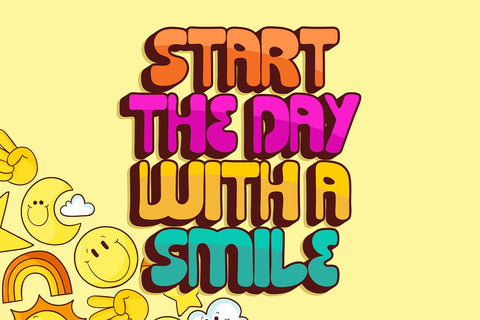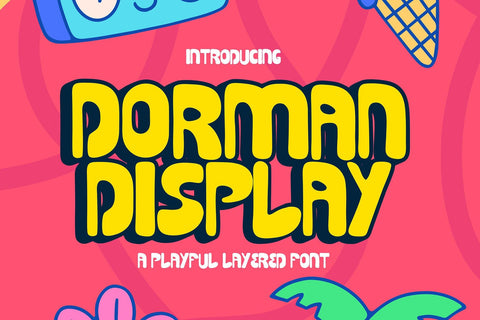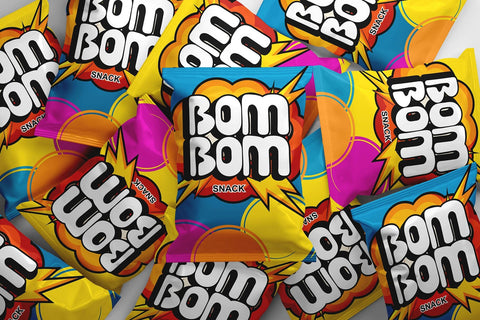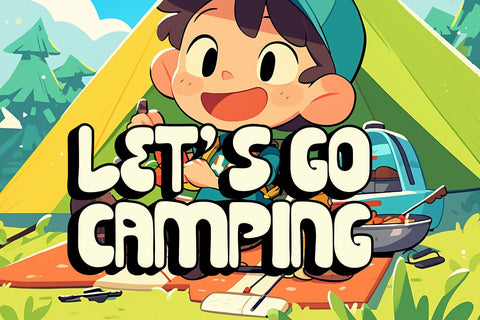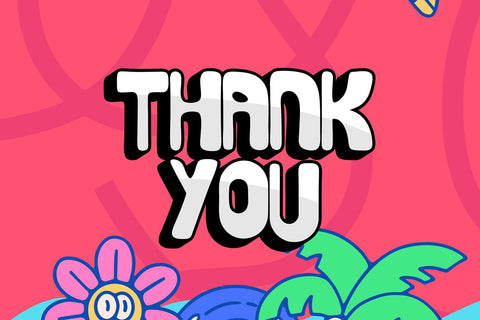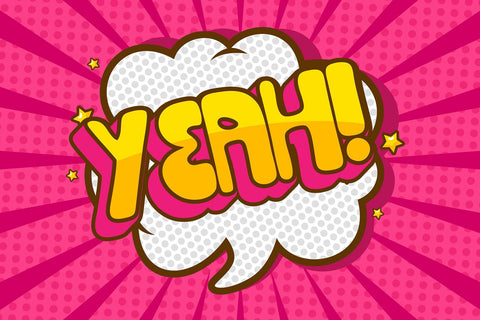
Dorman Display - A Shadowed Display Font
Dorman Display is a playful display font designed to bring a sense of fun and creativity to your projects. With its whimsical characters and vibrant style, this font is perfect for children's books, posters, party invitations, and any design that calls for a lively and energetic touch. The unique and eye-catching design of Dorman Display adds a joyful and dynamic element to your text, making it stand out and capture attention. Whether used for headlines or decorative elements, this font brings a cheerful and imaginative flair to any project.
- 3d Layer Unique Font